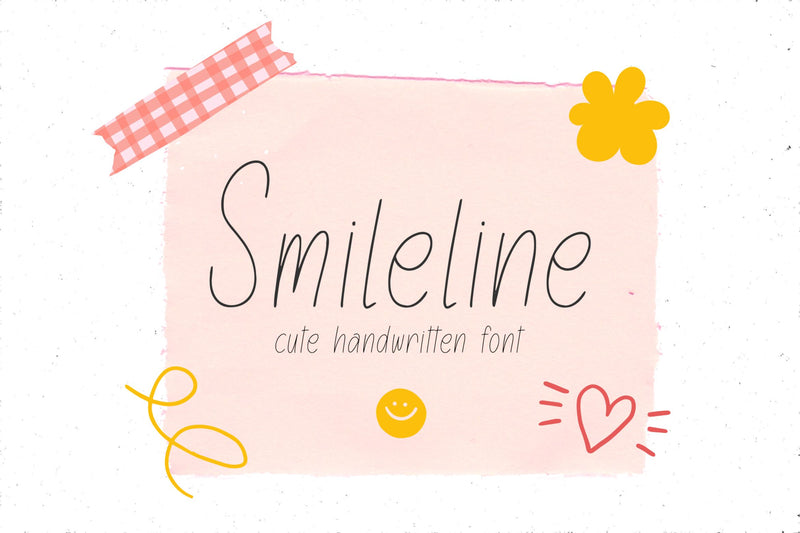
Smileline
Proudly Present, Smileline
Smileline is a Cute Handwritten Font
Smileline is perfect for product packaging, branding project, megazine, social media, wedding, or just used to express words above the background.